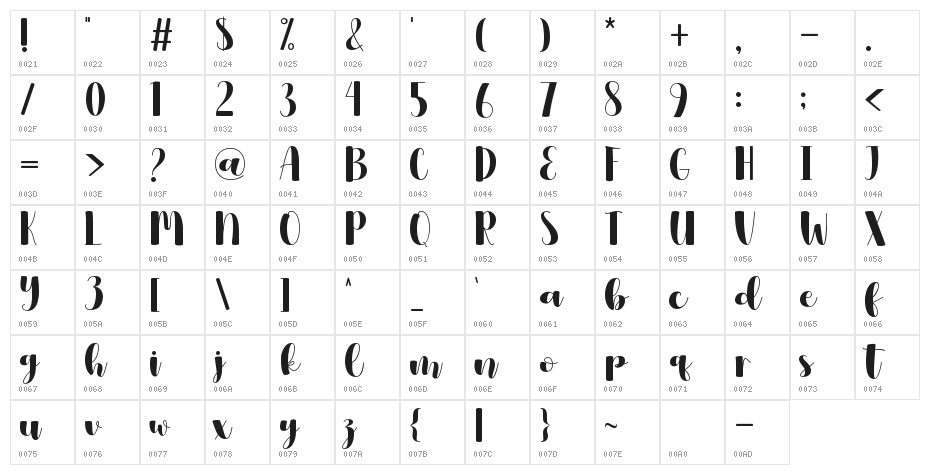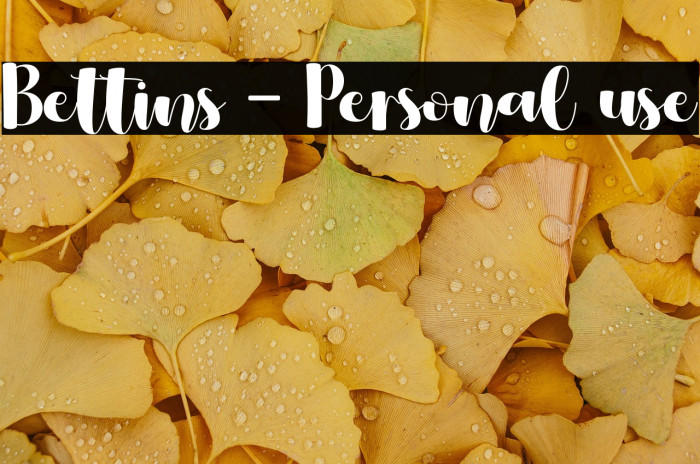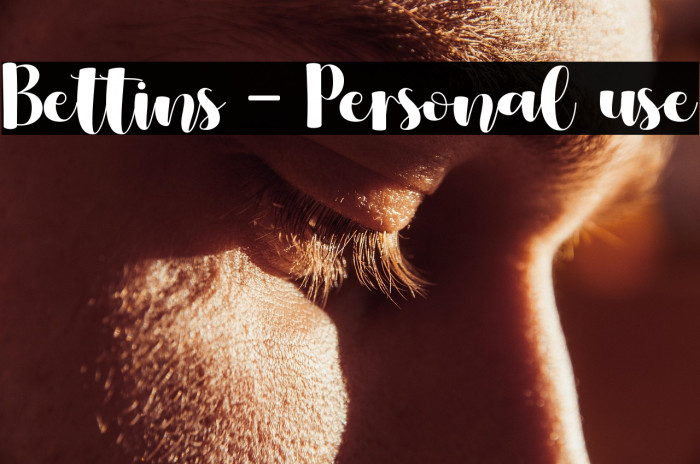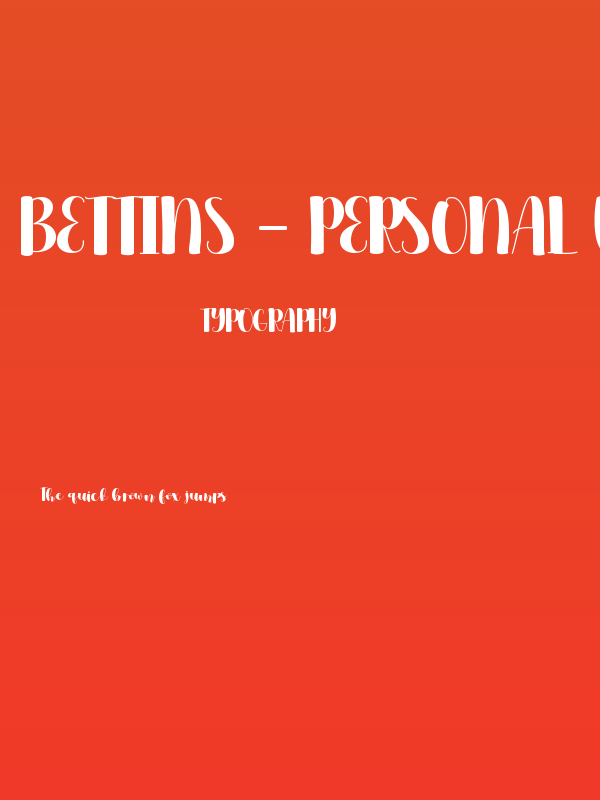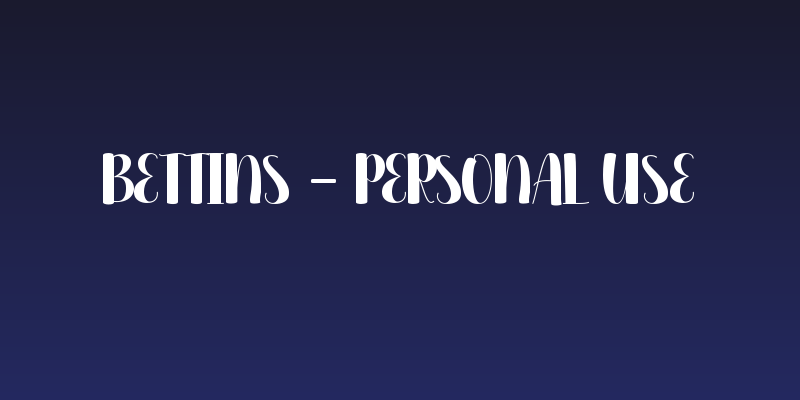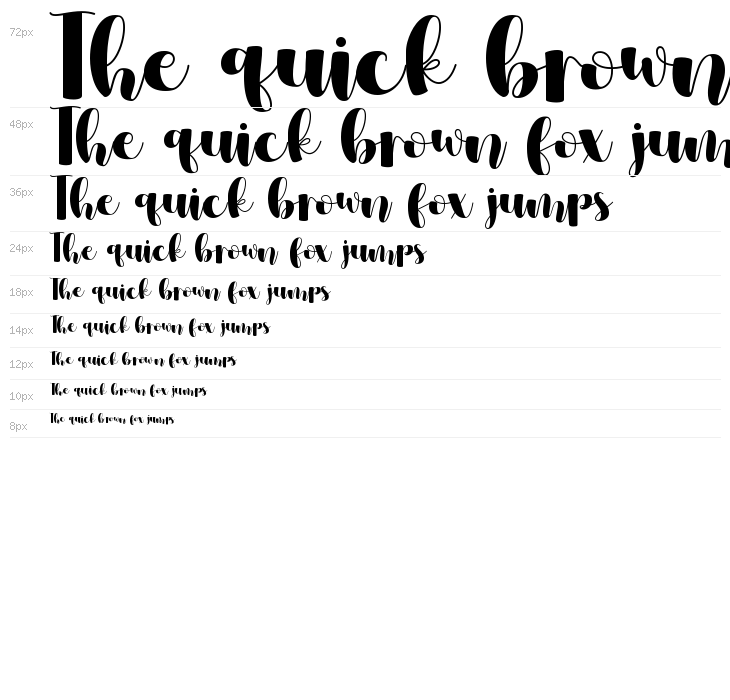
Bettins - Personal use Font
Bettins - Personal use Description
This font features a bold and playful script style with a modern twist. The uppercase letters are tall and slightly condensed, with a whimsical flair that adds a sense of movement and energy. The lowercase letters are more fluid and connected, enhancing the script-like appearance. The numbers are bold and consistent with the overall style, maintaining the playful yet sophisticated look. Special characters are creatively designed to match the font's unique aesthetic. The font's thick strokes and high contrast make it stand out, ideal for eye-catching designs.